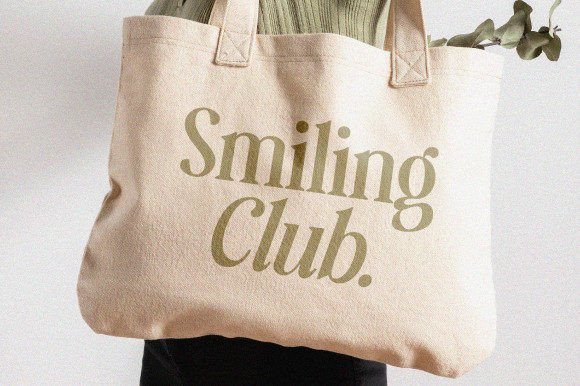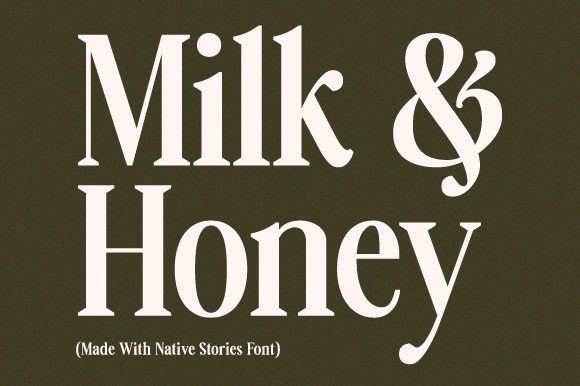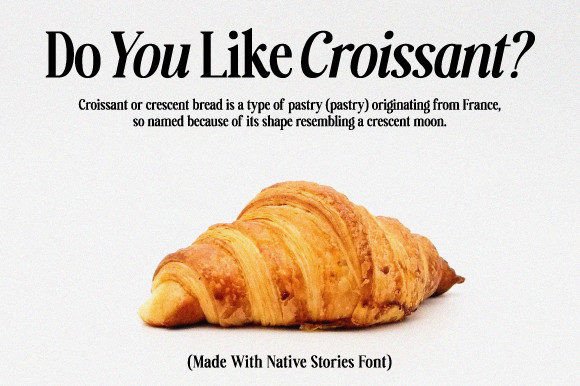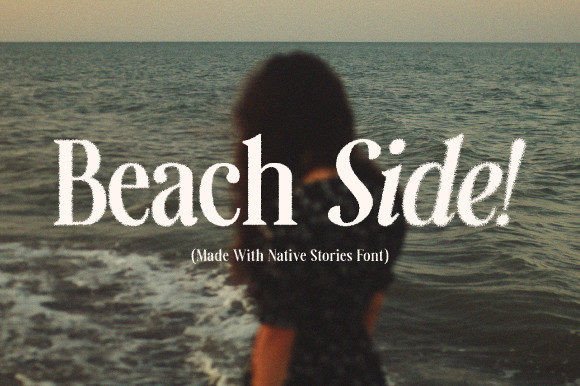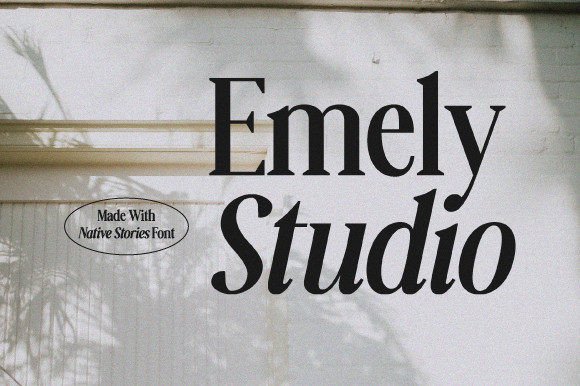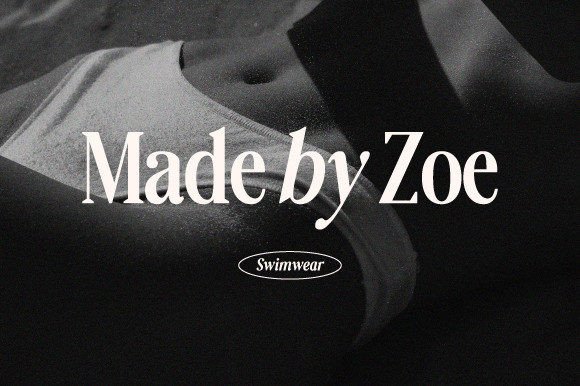
Introduction to Native Stories Font
Native Stories is a stylish and classic serif font ready to work with your design projects.
Perfect for applying to poster designs, branding, magazines, merchandise, logos, and more .
Key Features of Native Stories Font
Why Choose Native Stories Font?
Native Stories Font offers exceptional quality and versatility, making it a valuable addition to your design toolkit. Whether you’re creating for personal projects or commercial use, Native Stories Font delivers professional results.